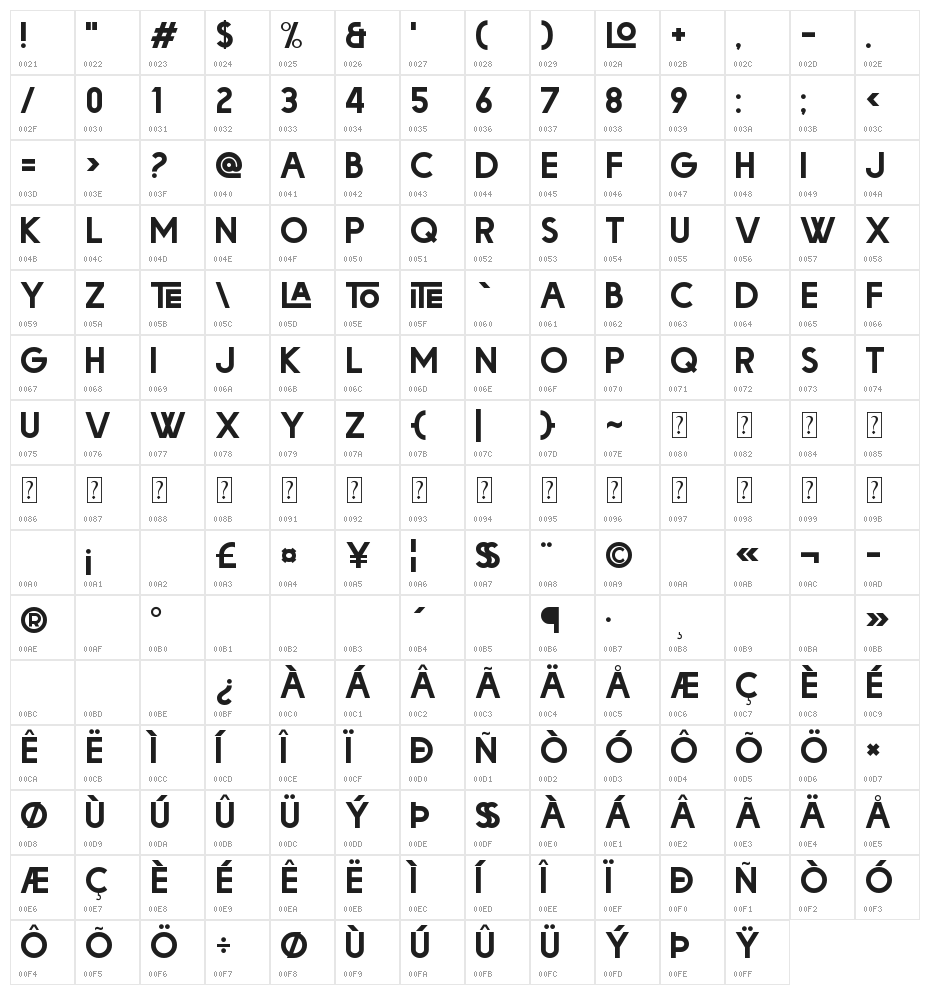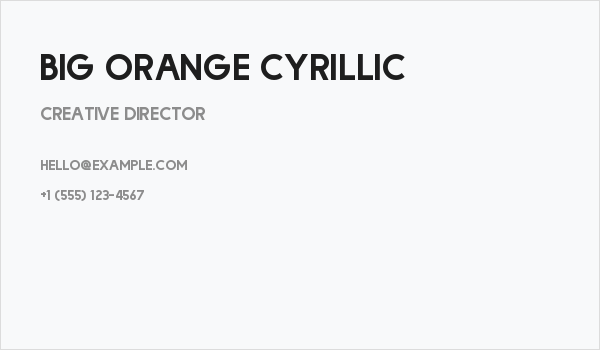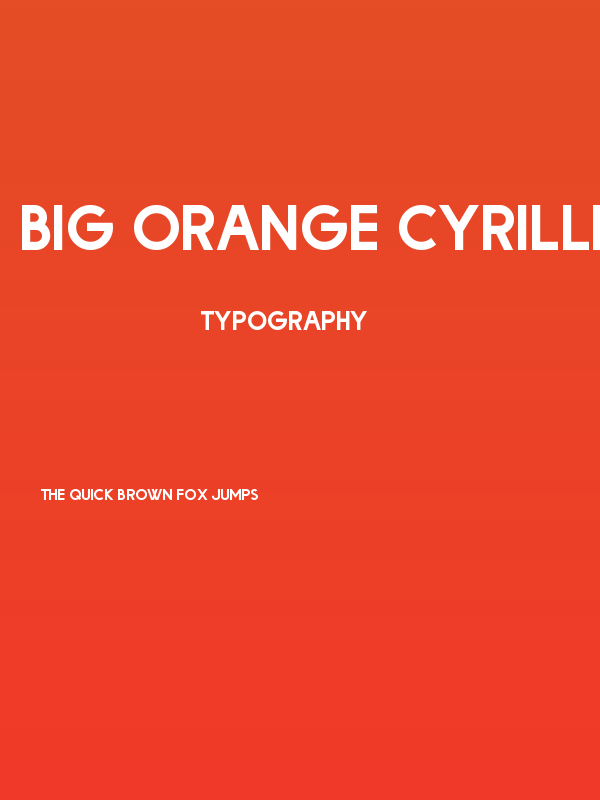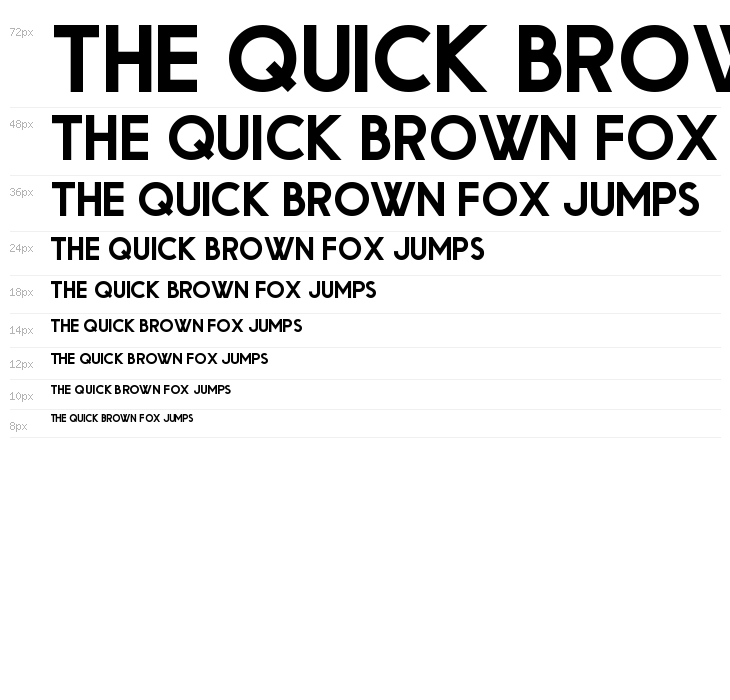
Big Orange Cyrillic Font
Big Orange Cyrillic Description
This font features a bold and geometric sans-serif style, characterized by clean lines and a modern aesthetic. The uppercase letters are uniform in height, providing a strong and cohesive appearance. The numerals are equally bold, maintaining the geometric theme with consistent stroke widths. Special characters are designed to match the overall style, ensuring a seamless integration with text. The font's simplicity and clarity make it highly legible, suitable for various design applications where a contemporary and assertive look is desired.
| Use Case | Headlines, Logos, Advertising |
| Proposed Projects | Ideal for branding, advertising, headlines, and digital media where a strong visual impact is needed. |